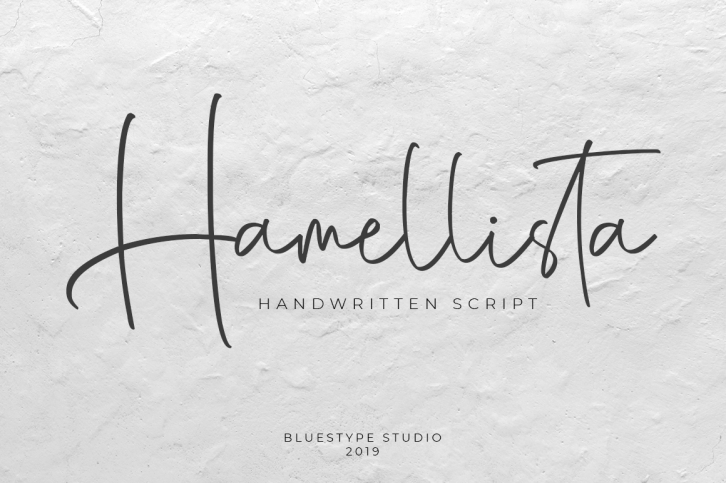
Hamellista - Handwritten Script Font Download
Hamellista is a great font that was designed by Bluestype Studio. Imagine the amount of combinations you can create using this font! The archive is 9.82 MB and it was released on October 29, 2019. Hamellista looks beautiful on wedding invitations, greeting cards, logos, posters, labels, t-shirt designs, logos, business cards and is perfect for use in ink or watercolor works, fashion, magazines, packaging and food menus, children's books and more!